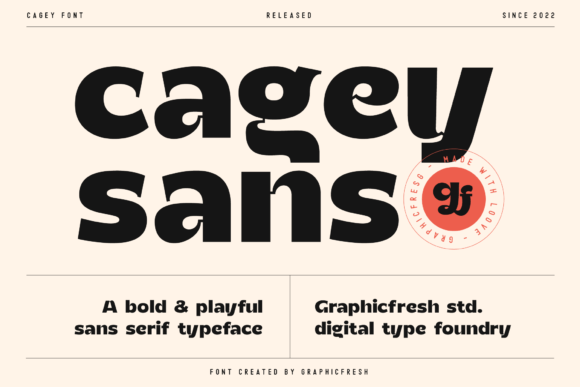
Introducing Cagey Font - The Bold Retro Sans Serif Font that will transport you back to the groovy vibes of the 70s and 80s! Created by Graphicfresh, Cagey Font is the ultimate choice for food brands seeking a captivating and nostalgic touch to their designs.
With its bold and strong appearance, Cagey Font exudes a sense of confidence and personality that is sure to grab attention. Its retro style instantly evokes a feeling of nostalgia, making it the perfect choice for brands looking to tap into the power of vintage aesthetics.
Imagine your food brand's logo or packaging featuring Cagey Font. The bold and striking letters will effortlessly communicate your brand's message, making it memorable and instantly recognizable. Whether you're selling artisanal chocolates, trendy food trucks, or organic produce, Cagey Font will elevate your brand's visual identity to new heights.
This font isn't just visually appealing; it also carries a sense of history and charm. Transport your audience back to a time of disco balls, neon lights, and funky tunes with Cagey Font. Let your designs tell a story and create an emotional connection with your customers.
Cagey Font is designed to capture attention and leave a lasting impression. Its versatility allows you to use it across various marketing materials, from social media graphics to website banners. Stand out from the crowd and make a statement with this eye-catching font.
Whether you're a seasoned designer or a business owner looking to enhance your brand's visual appeal, Cagey Font is here to make your life easier. Its user-friendly nature ensures that you can effortlessly incorporate it into your designs, even if you're not a design expert.